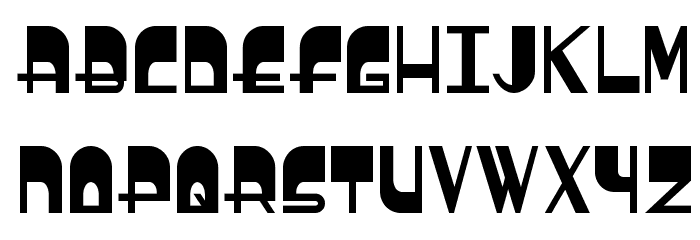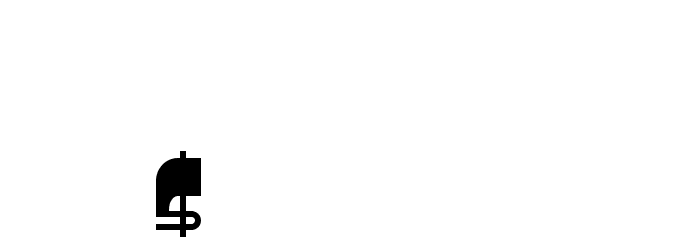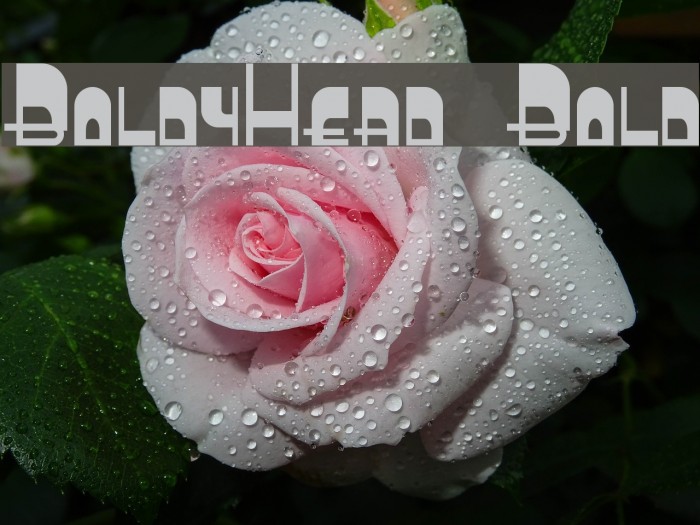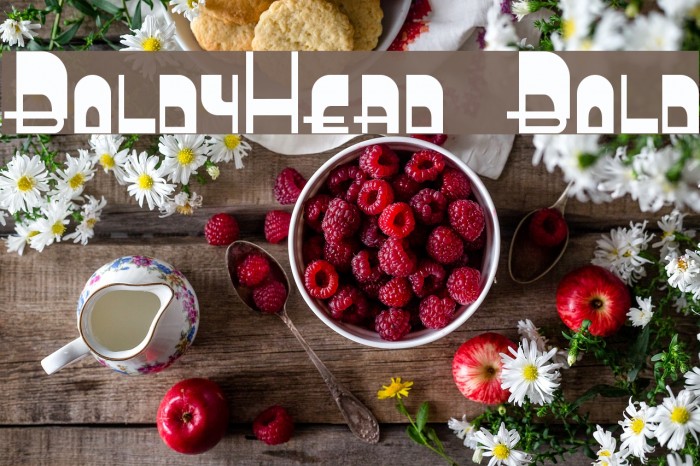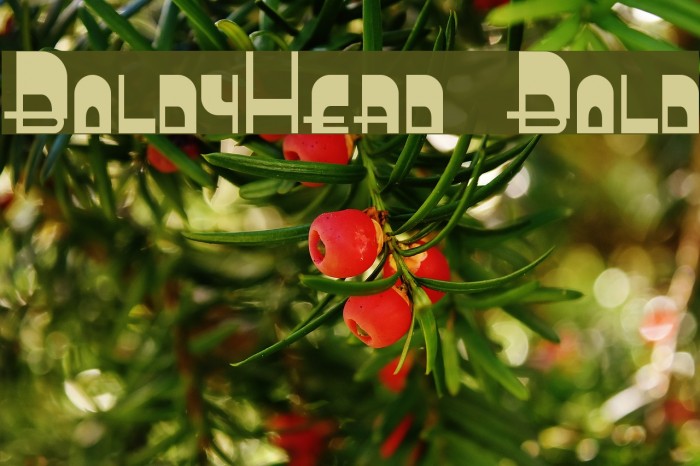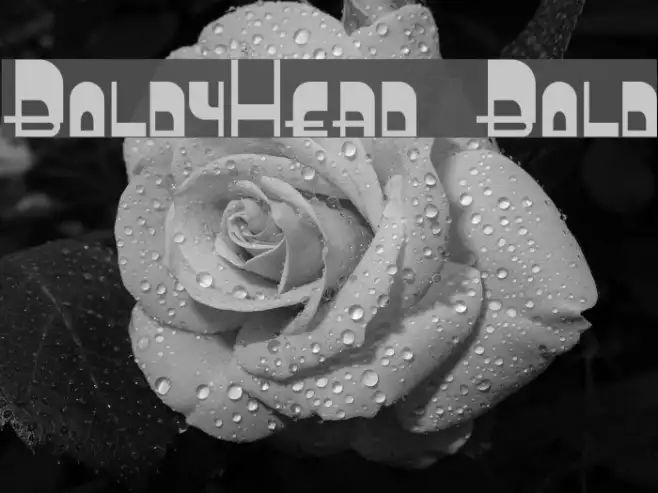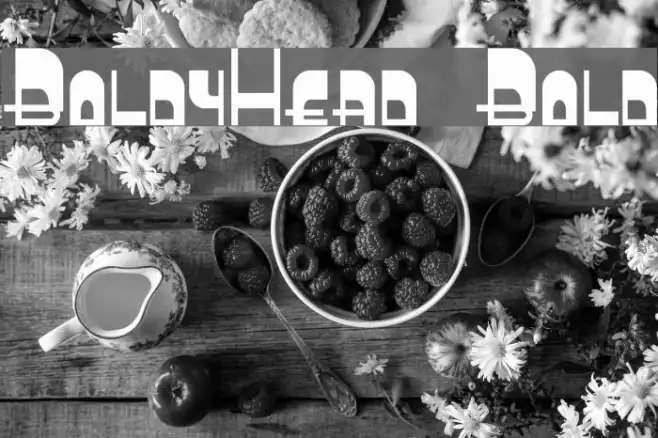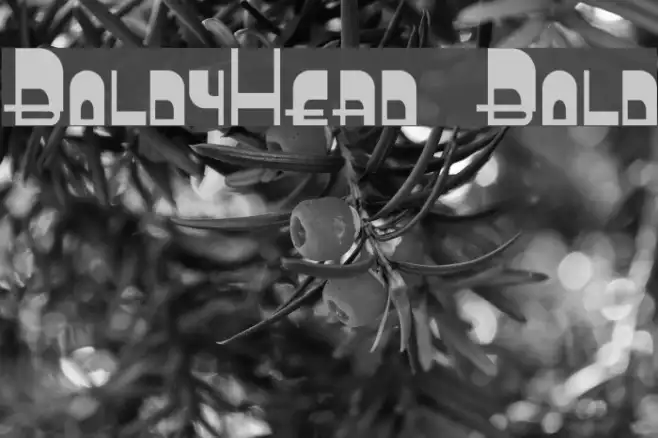
BoldyHead Bold Font
This font features a bold and geometric design, characterized by thick, block-like letters with sharp angles and clean lines. The uppercase letters are particularly striking, with a modern and futuristic aesthetic. The lowercase letters maintain the same boldness, ensuring consistency throughout the typeface. The numbers and special characters follow the same design principles, making them easily recognizable and visually cohesive. This font is ideal for making a strong visual impact, with its high contrast and distinctive style.
A bold, geometric font with a modern, futuristic aesthetic.
- Proposed Projects: Ideal for branding, posters, headlines, and any design project requiring a strong visual impact.